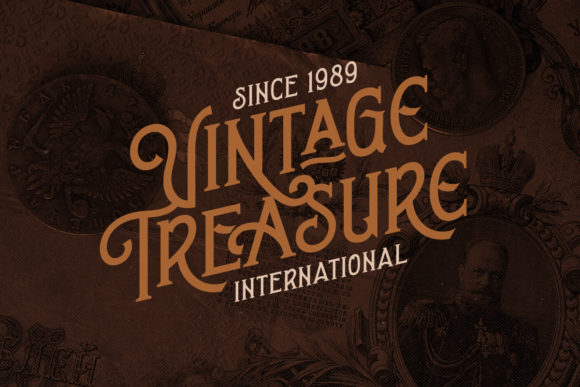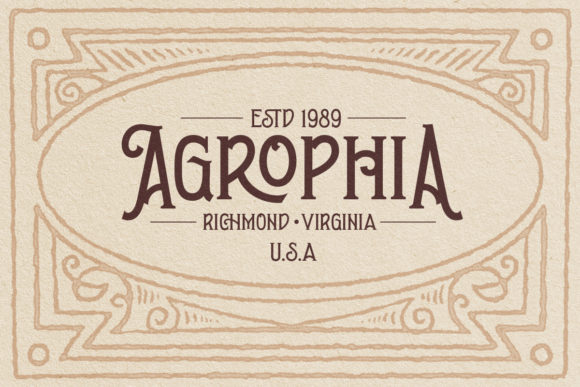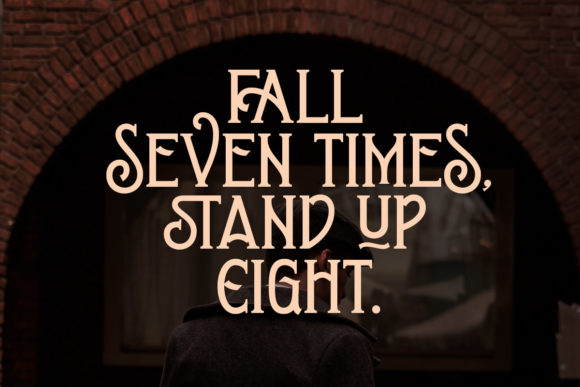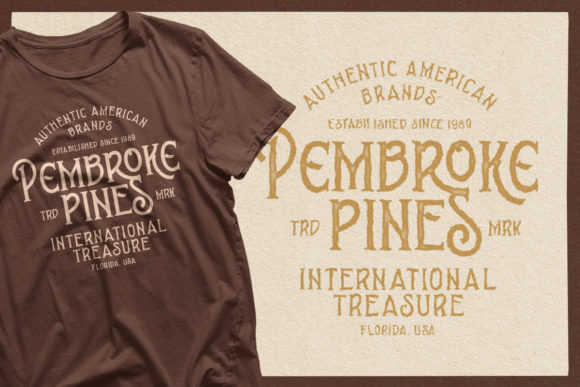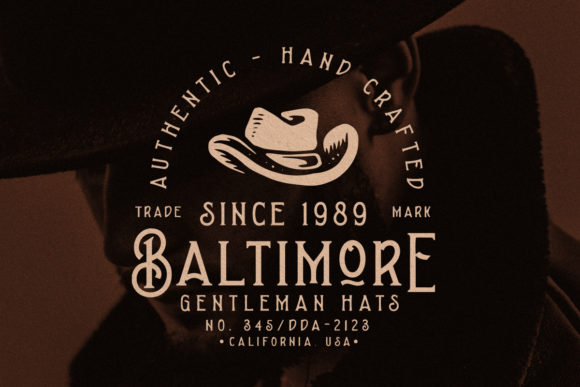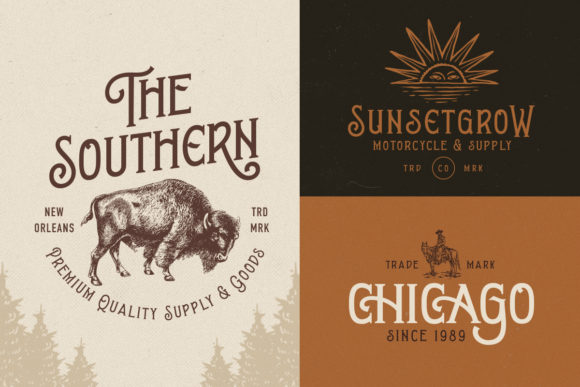
Discover the Charm of Brown Chunkers Font
Remember that moment when you stumbled upon the perfect font, and your design just clicked into place? It’s like finding the missing puzzle piece, and everything falls into its rightful place. That’s what happens when you meet Brown Chunkers Font, a vintage-style display font that’s been carefully handcrafted to capture your heart.
Brown Chunkers Font is more than just a font – it’s a statement piece, perfect for adding a touch of personality to your logos, branding, social media, and crafty DIY projects. Its clean and quirky design makes it a valuable addition to any designer’s toolkit, offering endless possibilities for creativity and self-expression.
Brown Chunkers Font Key Features
- Unique Characteristic: The distinctive ‘chunky’ texture and warm brown color of the font give it a unique, handcrafted feel, perfect for adding a touch of personality to designs.
- Font Family: The font family consists of multiple styles, including Regular, Italic, Bold, and Bold Italic, providing users with a range of options for different design needs.
Designer Review: Brown Chunkers Font
Overall, I’m quite impressed with Brown Chunkers Font. It’s a unique and quirky addition to any design project. ✨ I love how it adds a touch of whimsy and playfulness to text, making it perfect for children’s books, comic strips, or even social media graphics.
One of the standout features of this font is its versatility. It can range from cute and endearing to bold and eye-catching, depending on the context in which it’s used. ✨ The varying weights and styles also make it easy to create visual hierarchy and emphasis in your design.
- ⚠️ The font may not be suitable for formal or professional projects, as it can come across as too playful or childish.
- ⚠️ The font may not be as readable in smaller sizes or at a distance, due to its chunky design.
Overall, I think Brown Chunkers Font is a great addition to any designer’s toolkit. It’s perfect for projects where you want to add a bit of personality and flair, but be sure to consider the limitations and use it thoughtfully.
The Brown Chunkers Font is ideal for creating a vintage or distressed look in designs, logos, and branding materials.
It’s also great for adding a unique touch to digital invitations, social media graphics, and marketing materials.